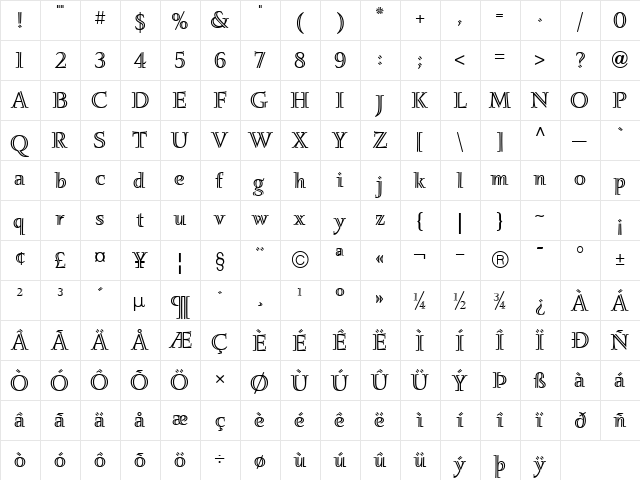
Ignatius ICG Regular Font Preview
Ignatius ICG Regular
Design Context for Ignatius ICG Typeface
Ignatius ICG takes a measured approach to typography — its balanced proportions and neutral character make it a reliable workhorse for both digital and print work.